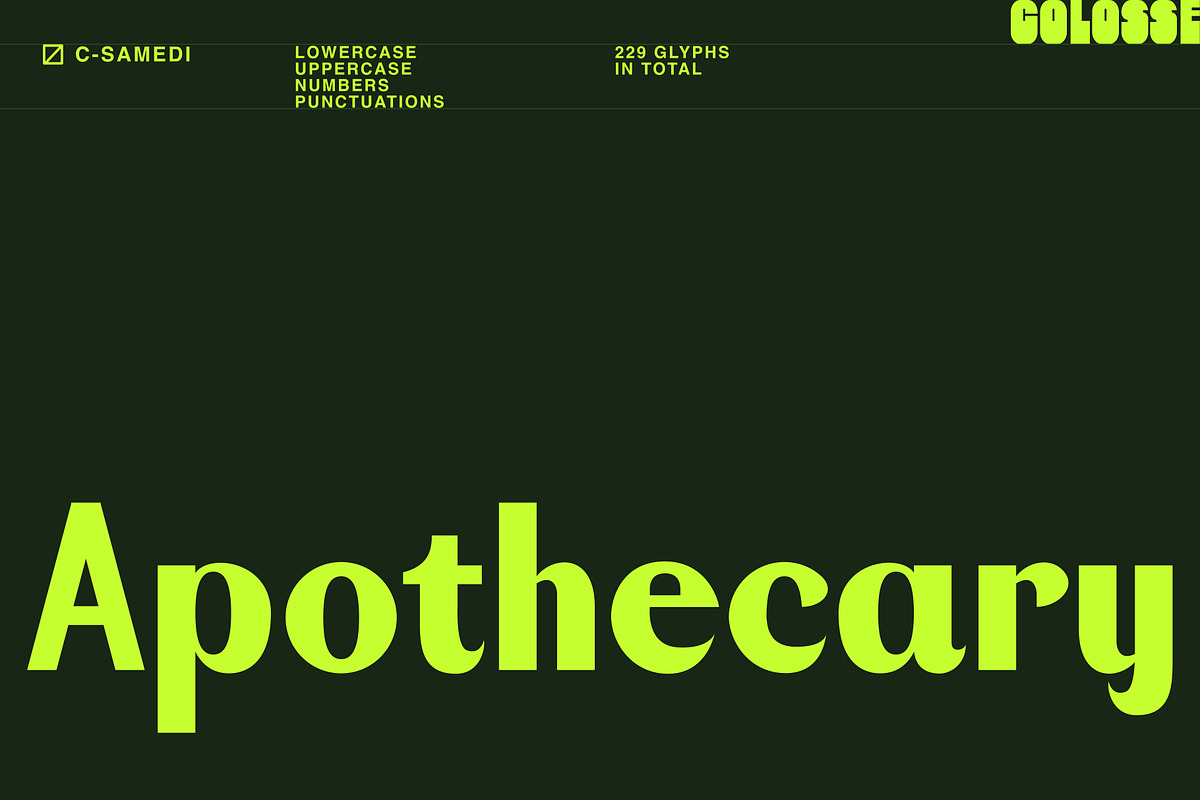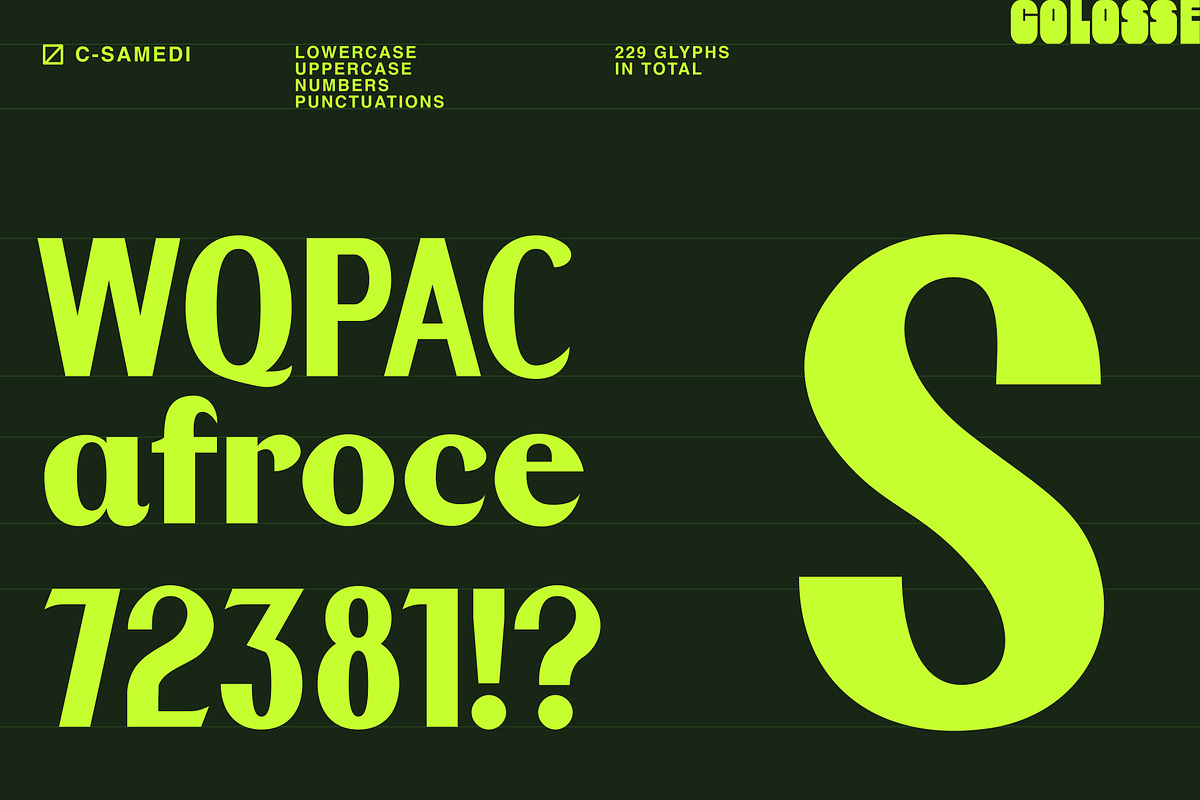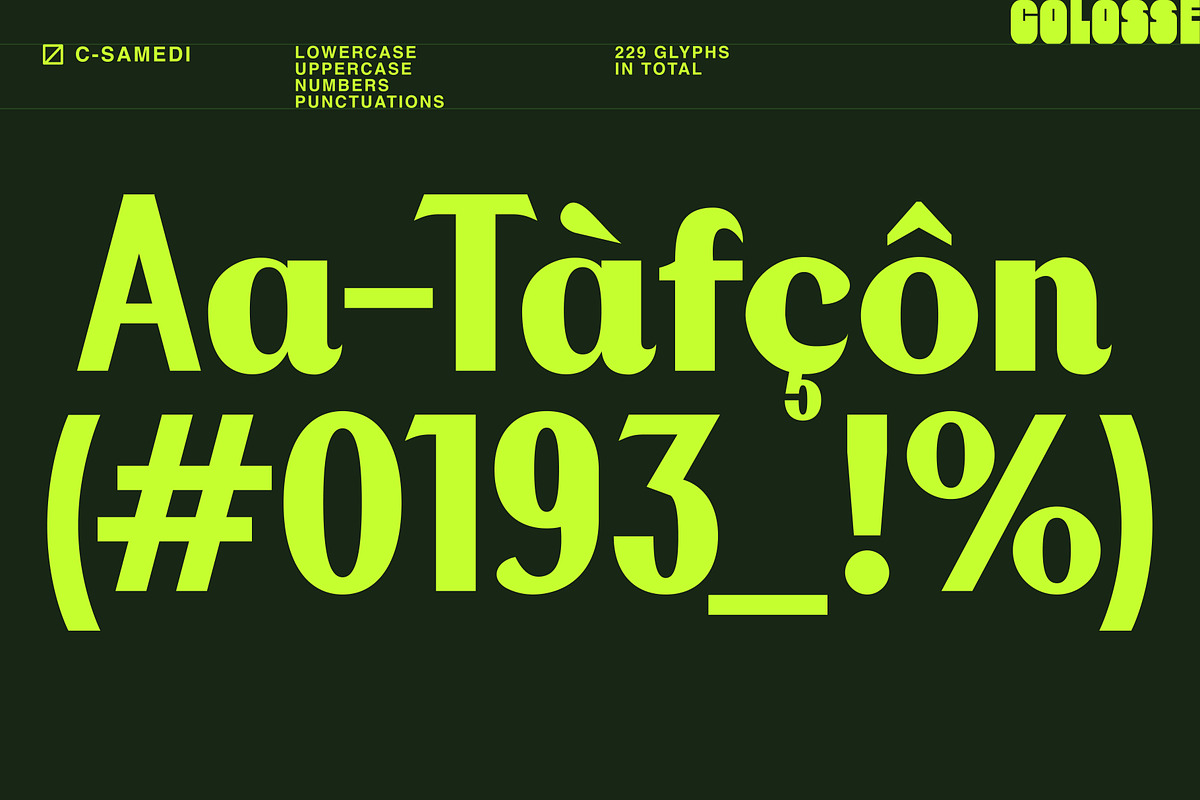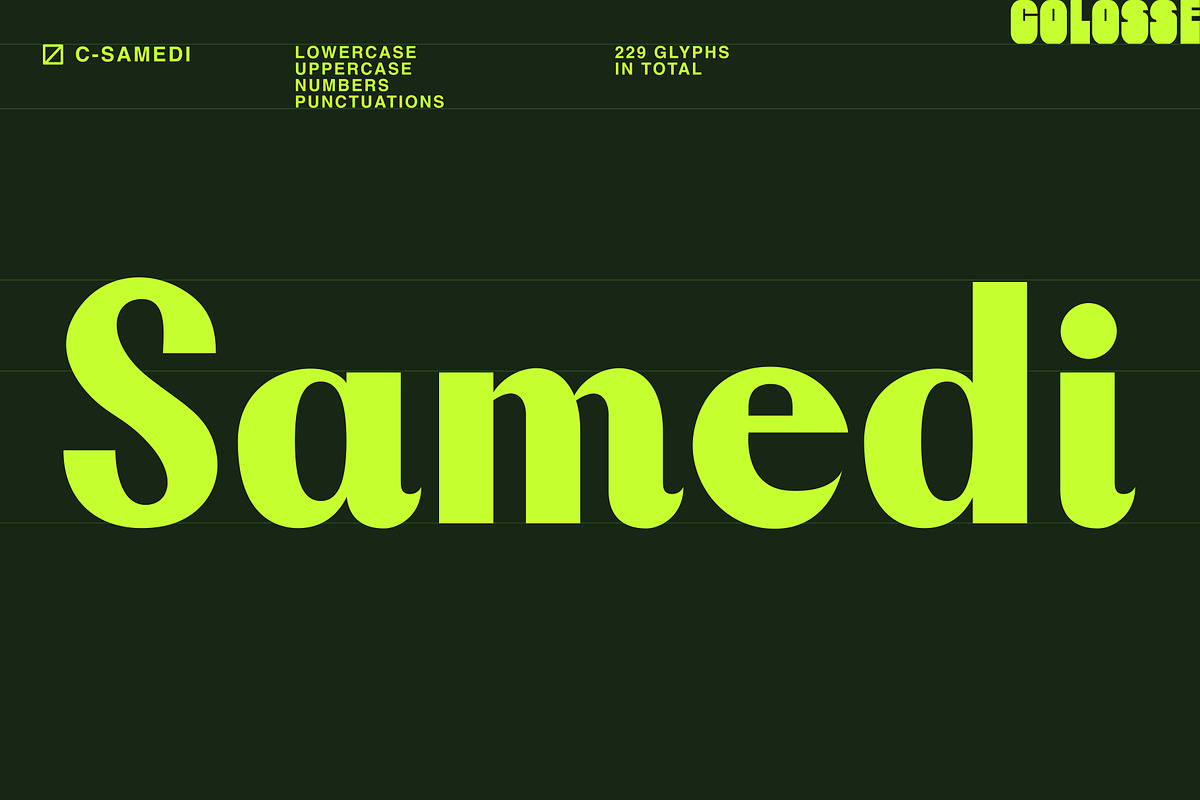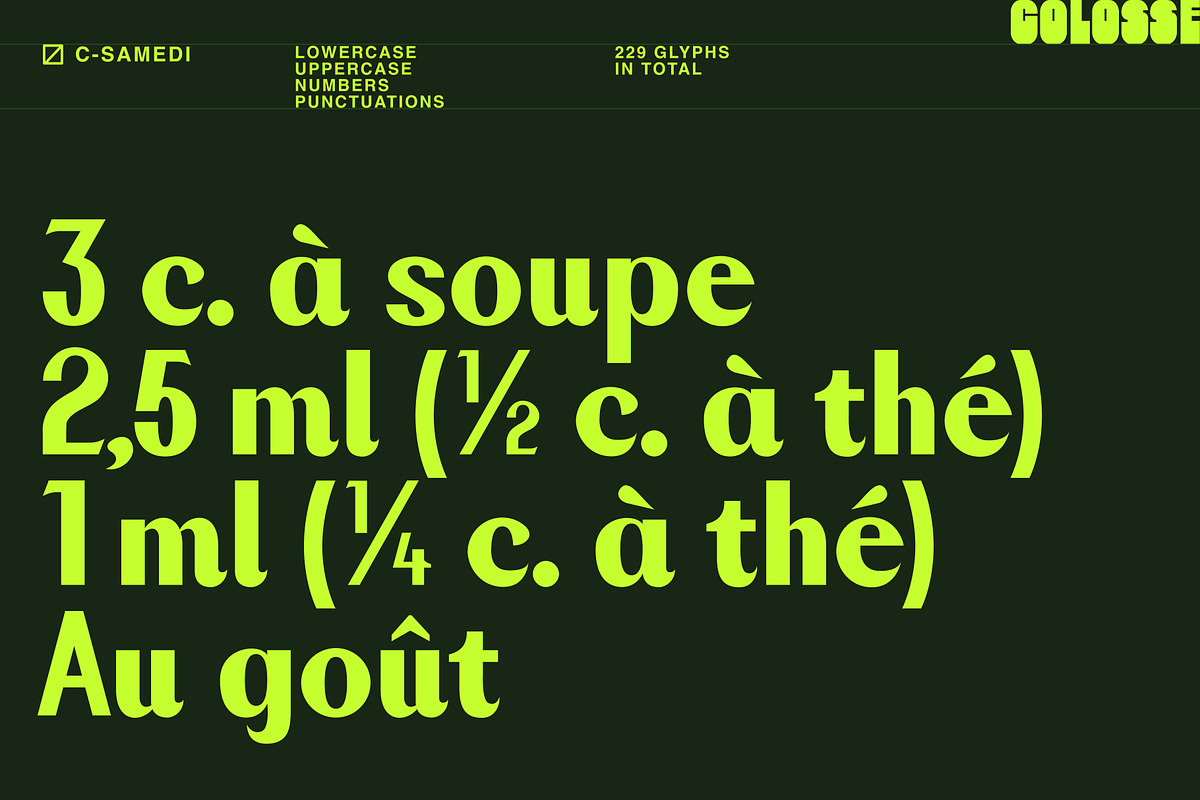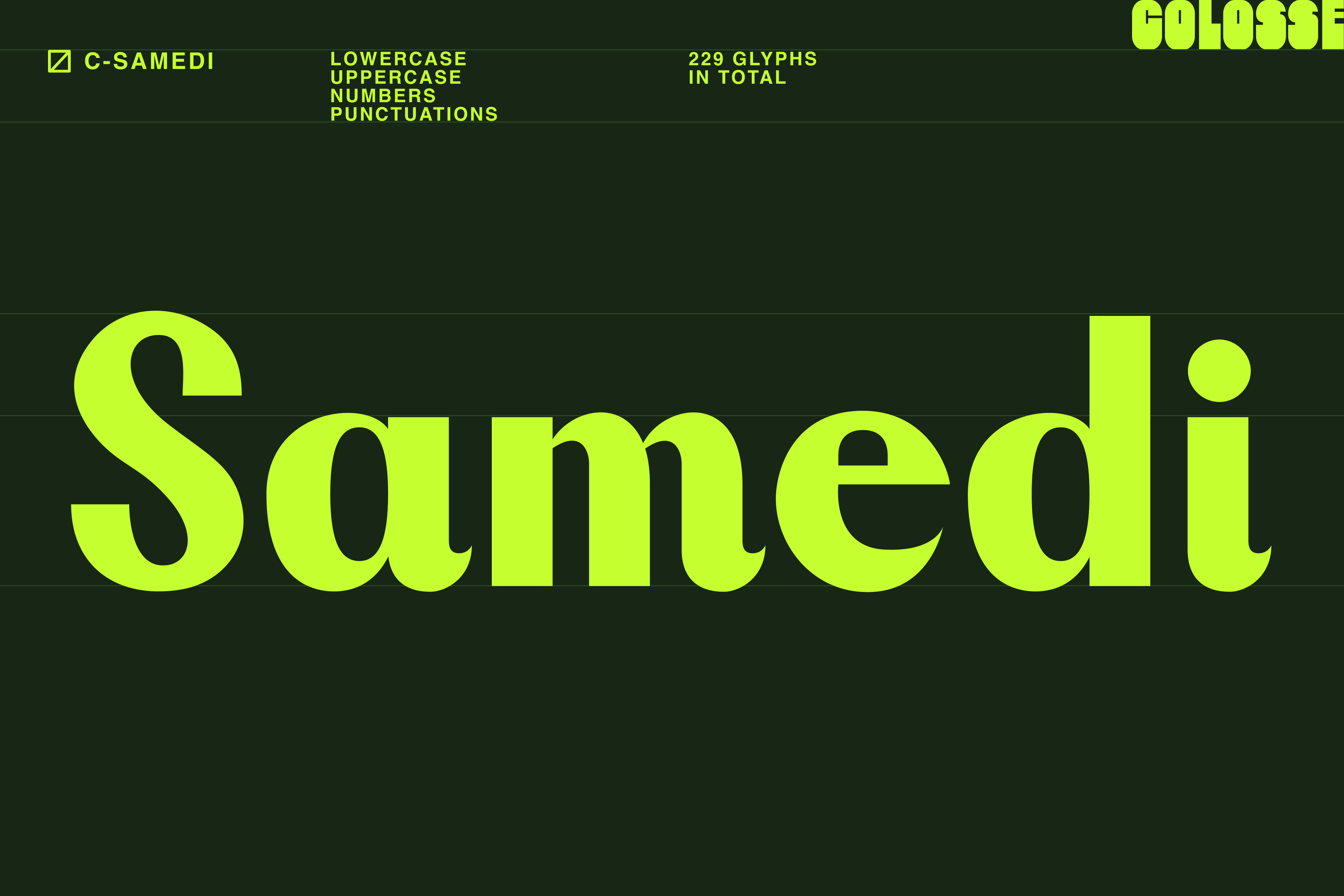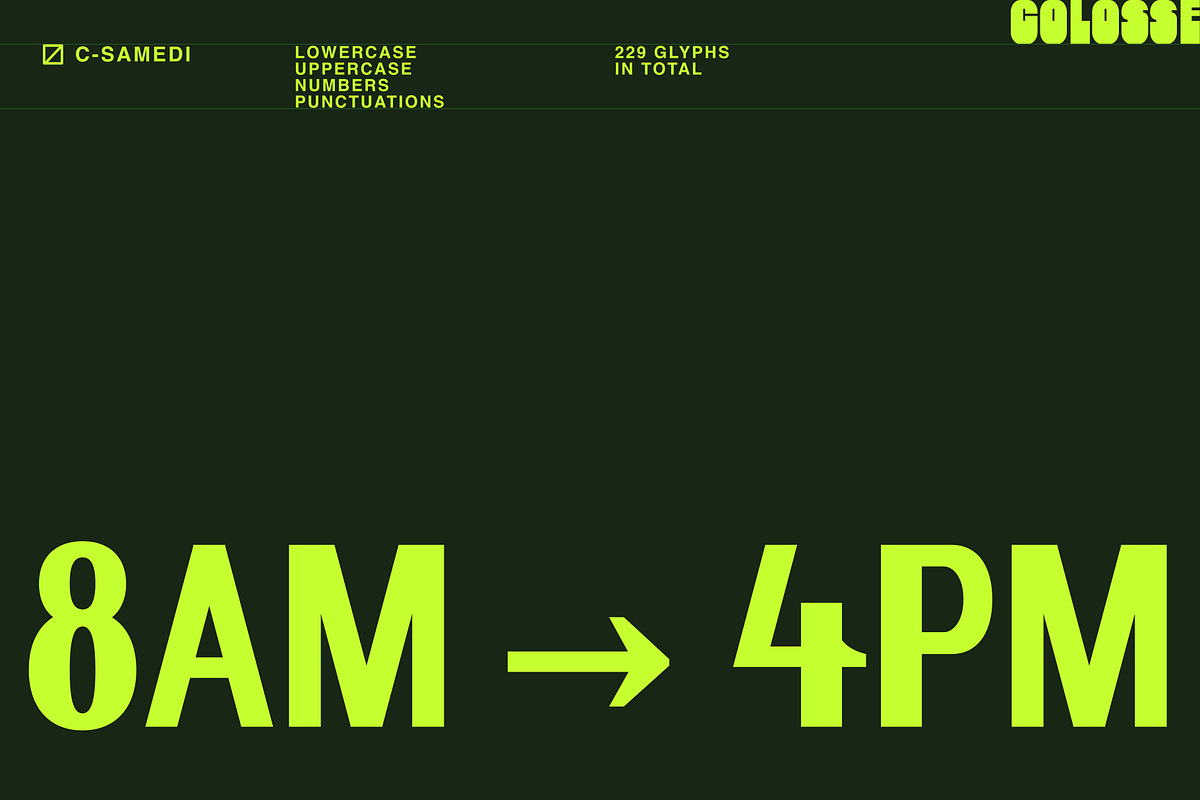
c-samedi display typeface
c-samedi a unique transitional font that gracefully straddles the line between serif and sans-serif. This versatile typeface embodies timeless elegance, offering a harmonious blend of classic and modern elements. With balanced strokes and refined curves, c-samedi provides a distinctive typographic experience, making it the perfect choice for projects seeking a touch of sophistication with a contemporary twist.